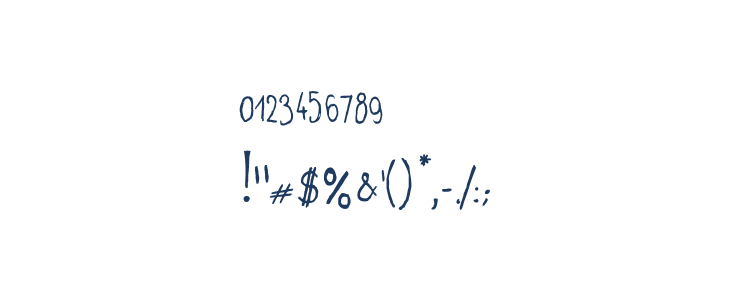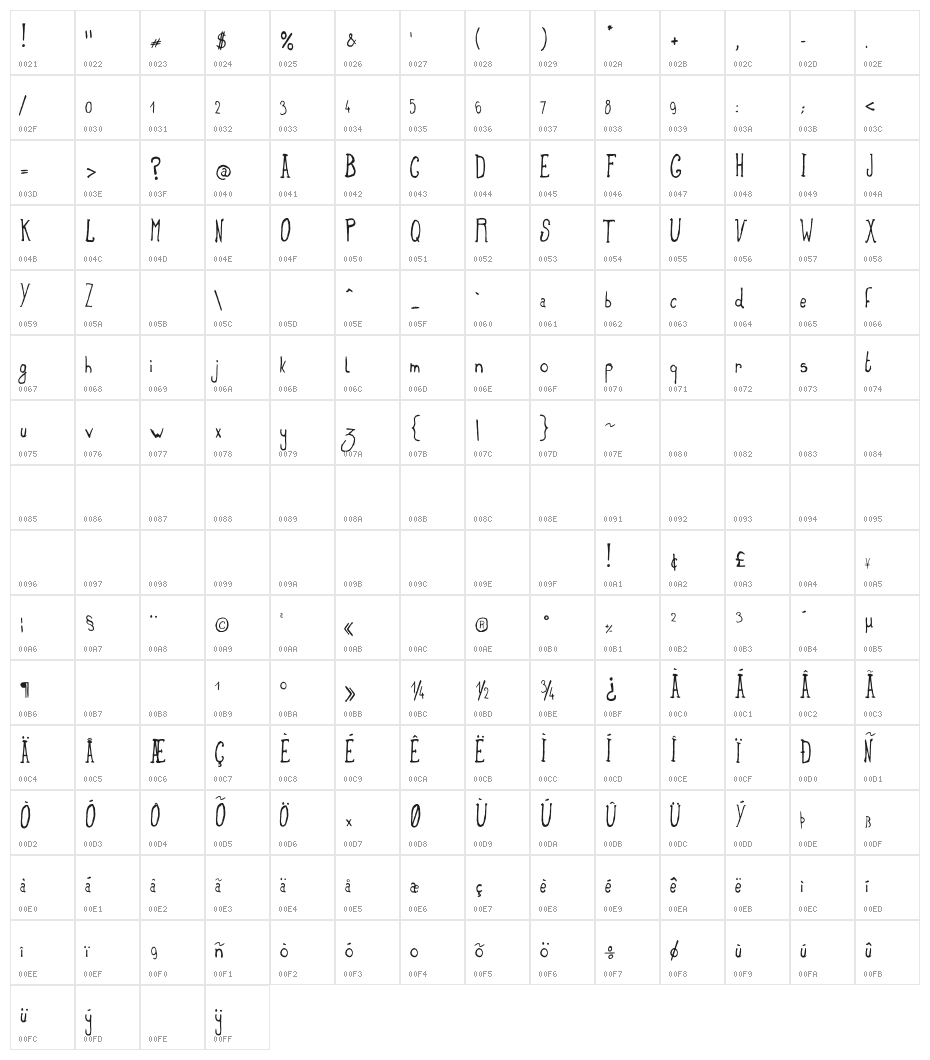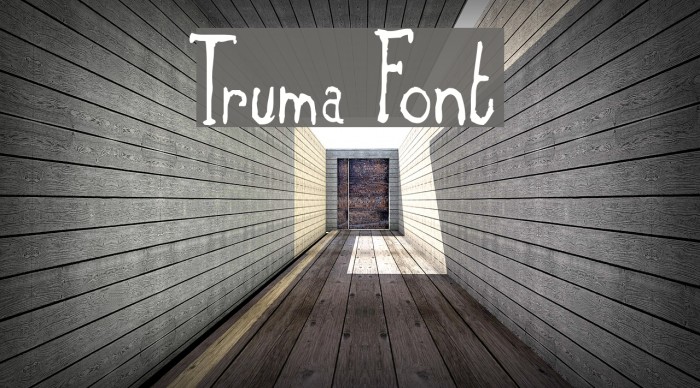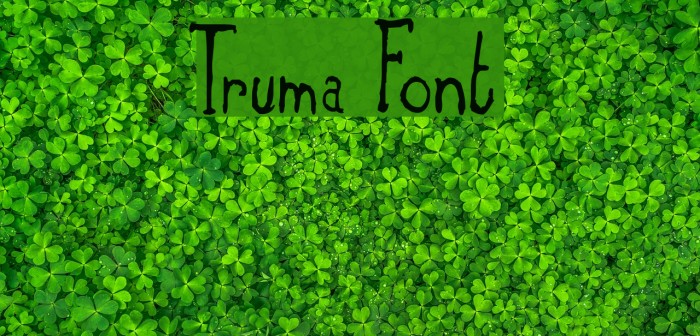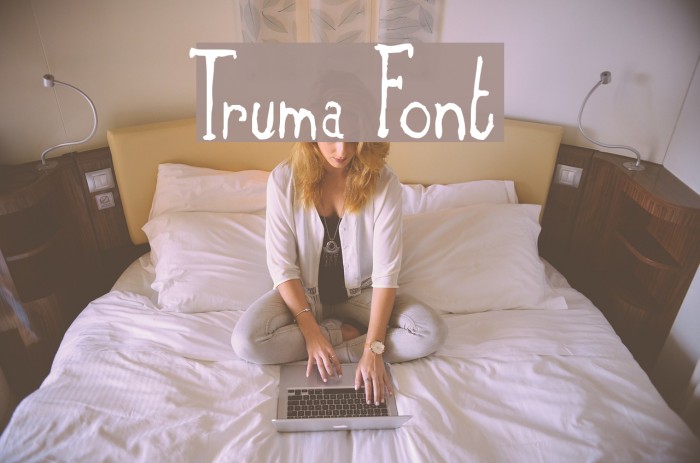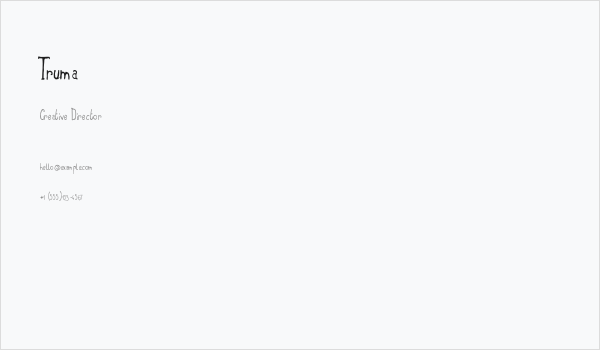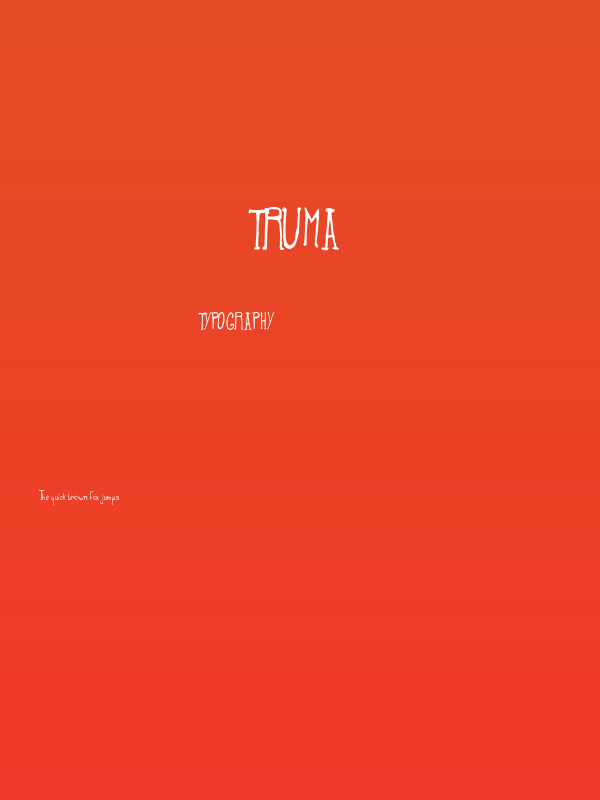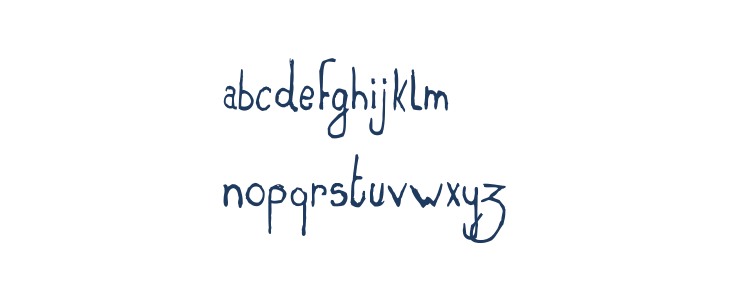
Truma Font
Truma Description
This font features a unique, hand-drawn style that exudes a playful and artistic vibe. The characters are irregular and slightly distorted, giving them a whimsical and informal appearance. The uppercase letters are tall and narrow, with varying stroke widths that add to the font's quirky charm. The lowercase letters maintain the same playful aesthetic, with some characters featuring exaggerated loops and curves. Numbers and special characters follow the same design principles, ensuring consistency throughout. This font is perfect for projects that require a touch of creativity and individuality.
| Proposed Projects | Ideal for children's book covers, creative posters, and artistic branding materials. |